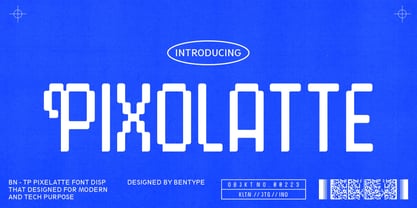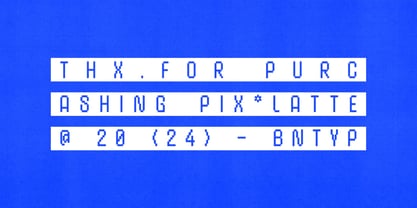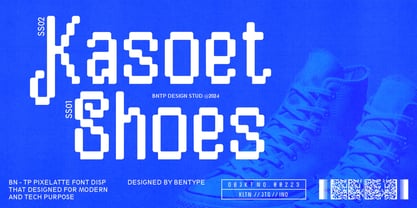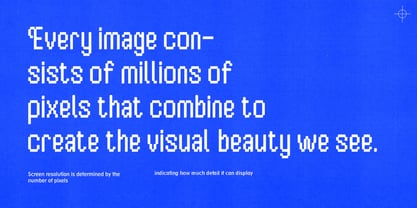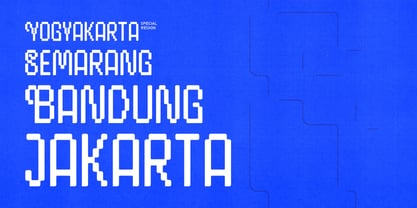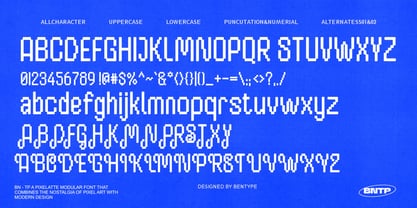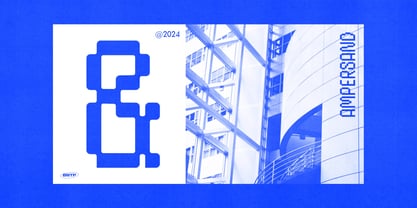
Pixolatte
by Bentype
The Pixolatte Font Family was designed by Muhammad Farkhan and published by Bentype. Pixolatte contains 1 styles. More about this family
Pixolatte - pixel font display is a unique and specialized typeface option, particularly suited for digital projects where a retro aesthetic or low-resolution display is desired. Despite their limitations in character set and resolution, pixel fonts remain popular among designers for their distinct visual appeal and nostalgic charm.
Designers: Muhammad Farkhan
Foundry: Bentype